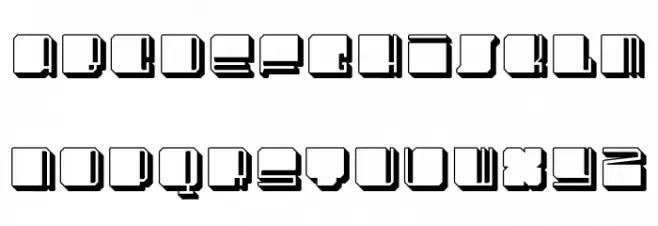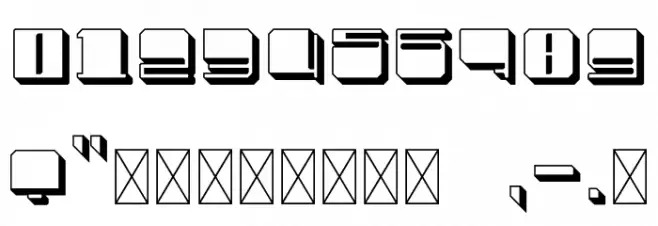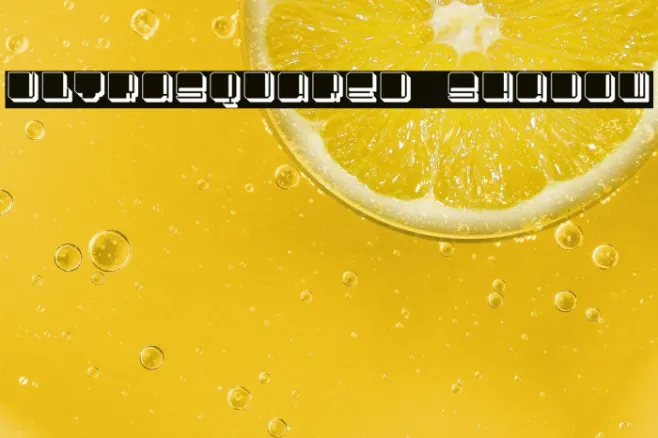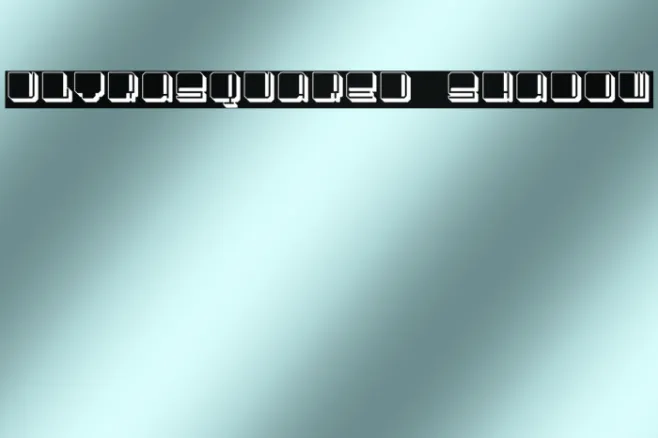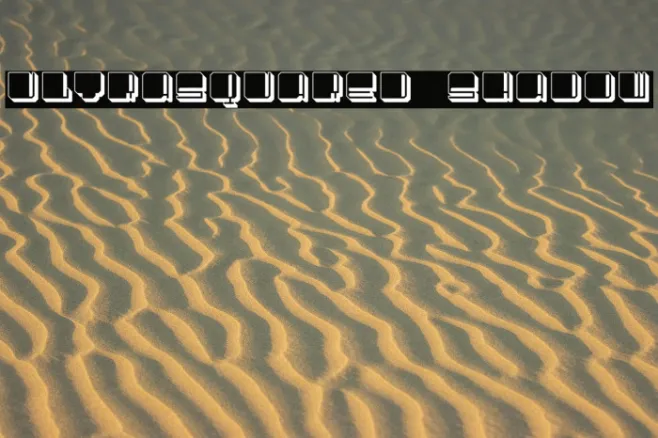
UltraSquared Shadow
This font features a bold, geometric design with a distinct shadow effect that gives it a three-dimensional appearance. Each character is constructed with squared edges and a consistent thickness, creating a uniform and structured look. The shadow adds depth, making the letters stand out prominently. The style is modern and futuristic, with a playful yet sophisticated edge. The characters are evenly spaced, ensuring readability while maintaining a compact form. This font is ideal for projects that require a strong visual impact and a contemporary feel.
A bold, geometric font with a three-dimensional shadow effect.
- Proposed Projects: Ideal for posters, logos, video game titles, and any project needing a modern, impactful typeface.